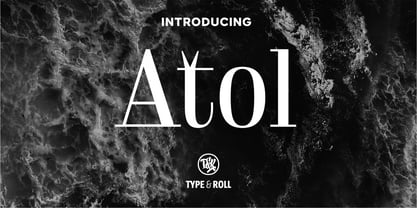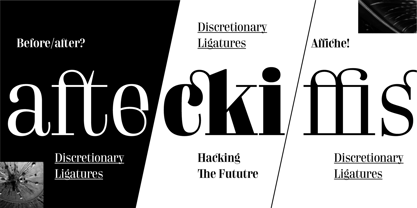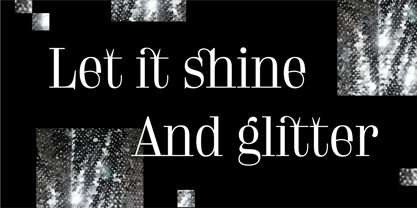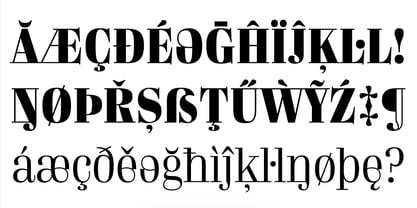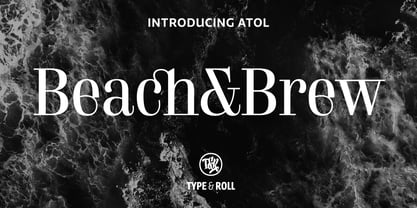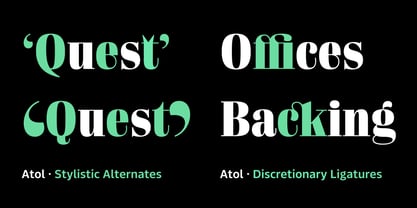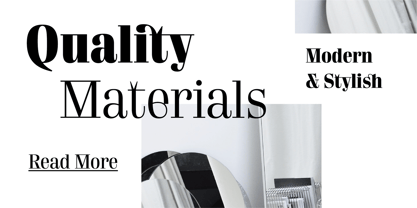
Atol
by Type & Roll
The Atol Font Family was designed by Robert Jarzec and published by Type & Roll. Atol contains 7 styles and family package options. More about this family
Atol is a contemporary take on classic didone types. High contrast and modern proportions, combined with subtle details, makes it ideal for characteristic, bold, tightly-set headlines in magazines, branding, animated typography and more.
Designers: Robert Jarzec
Foundry: Type & Roll